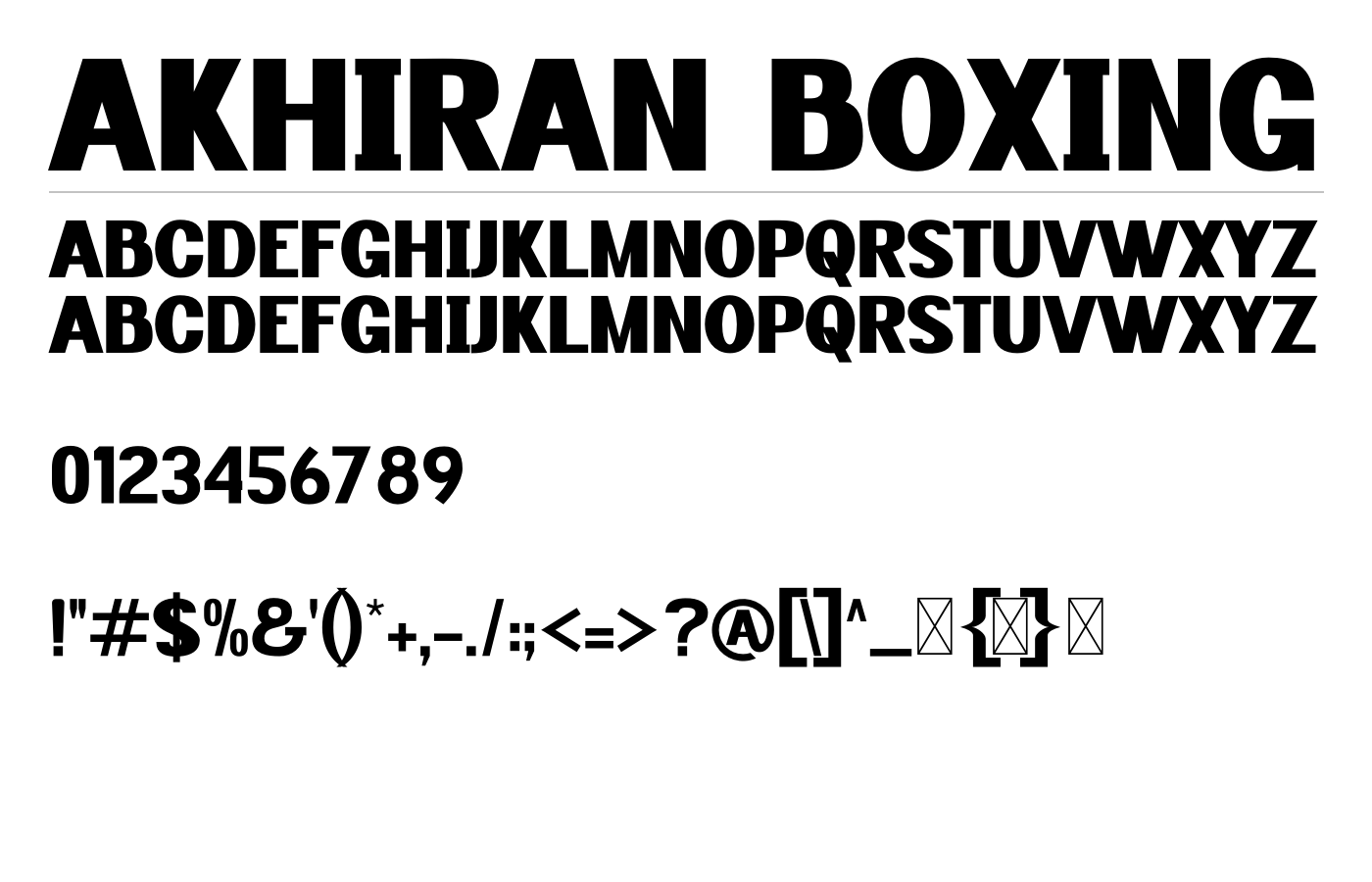
Akhiran Boxing is a bold, condensed sans serif font with strong geometric shapes and high stroke contrast, giving it a powerful and compact presence. Its clean, modern design with uppercase and stylized numerals makes it ideal for attention-grabbing headlines, logos, and sports or fitness branding where impact and clarity are essential. This font communicates strength and confidence, perfect for dynamic and energetic visual identities.
Akhiran Boxing Font
About Akhiran Boxing Font
| Font family | Akhiran Boxing Font |
| Designer | Rachmad Bagus Fatchi |